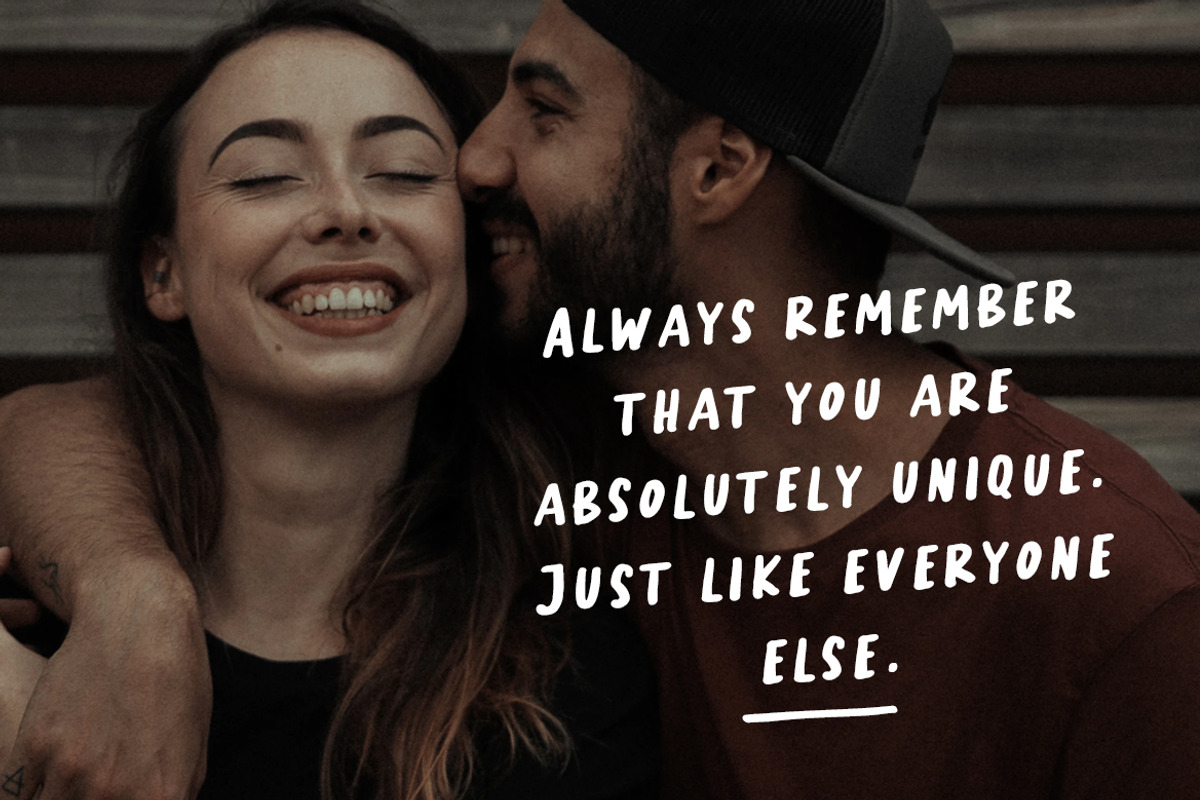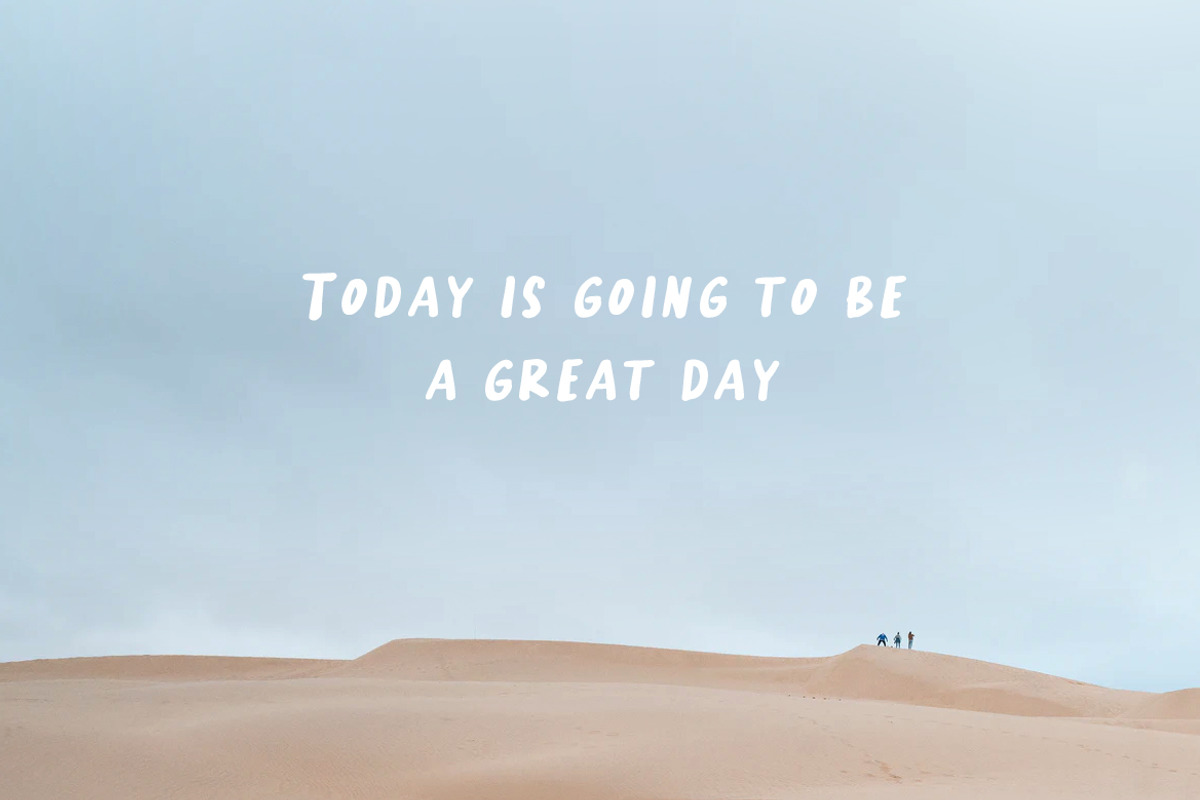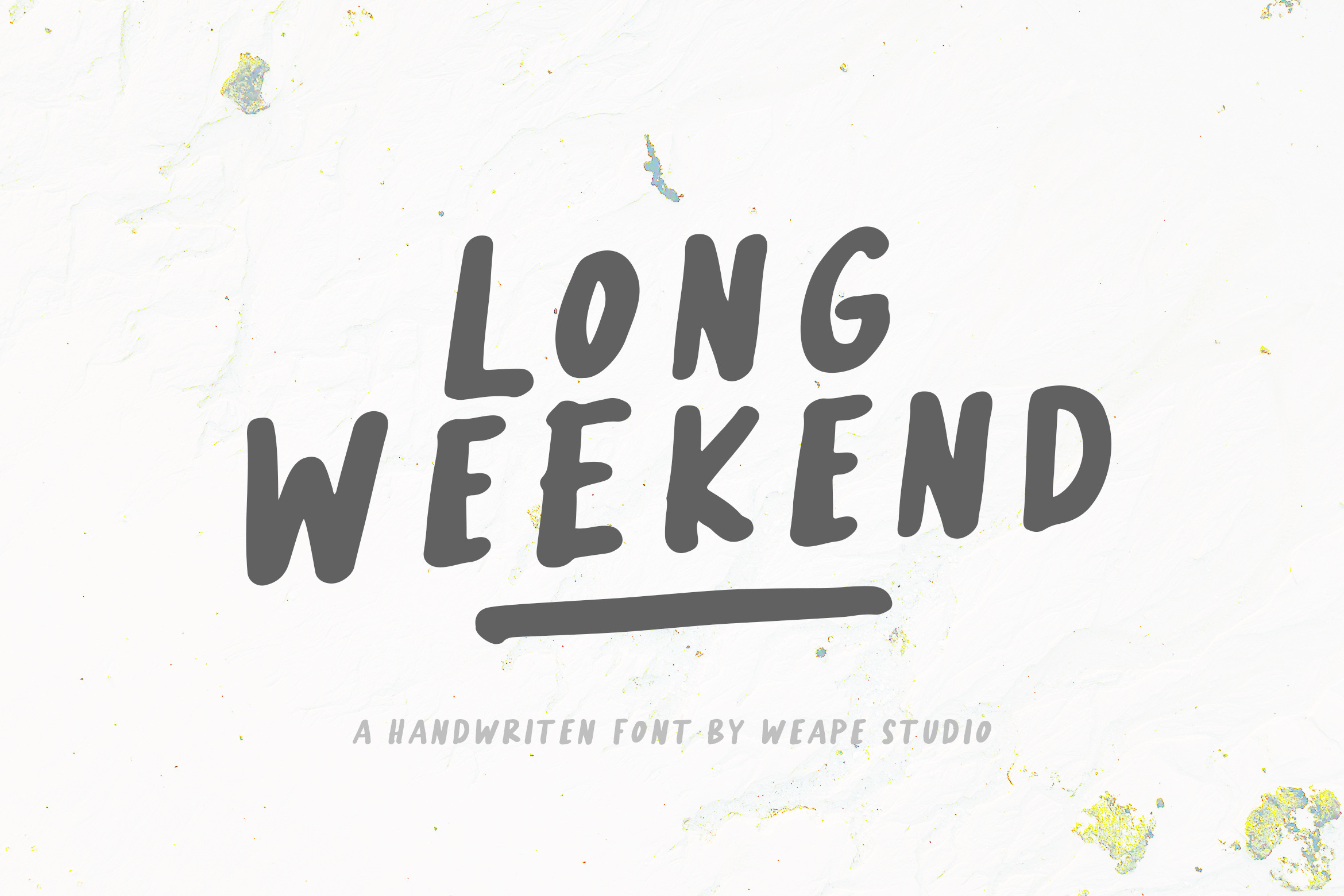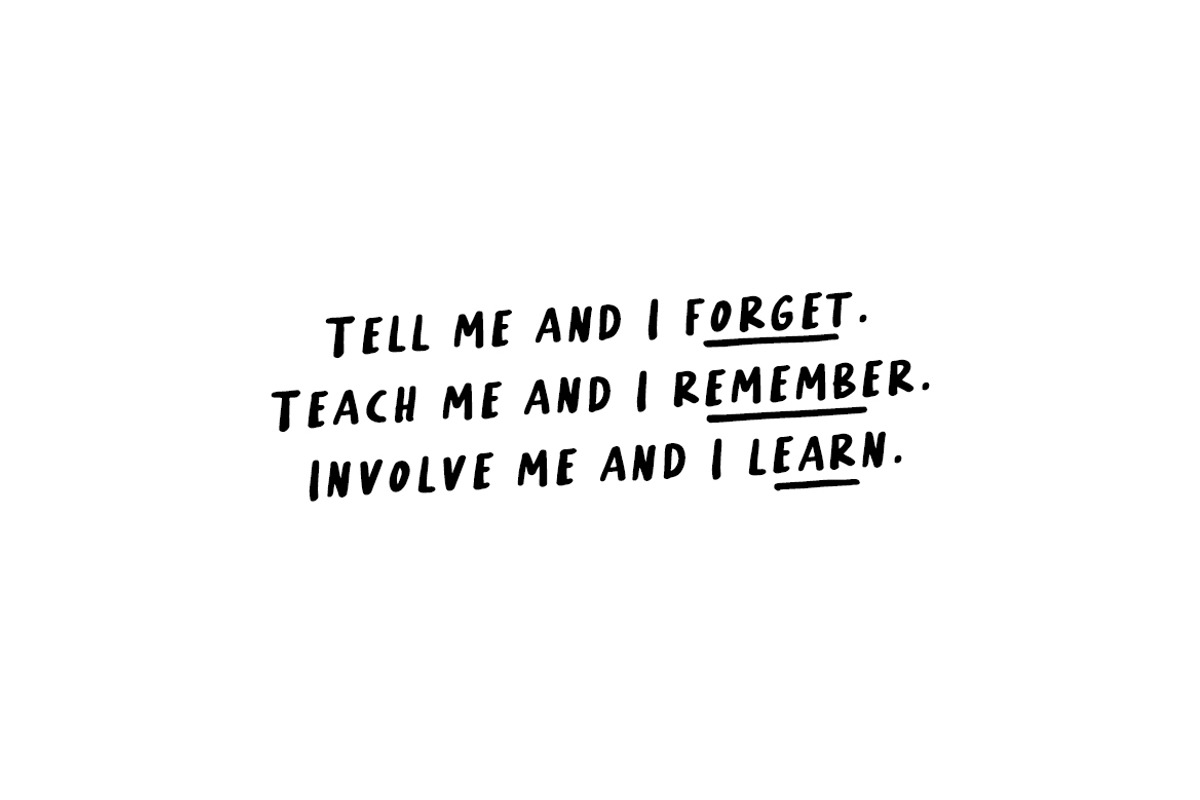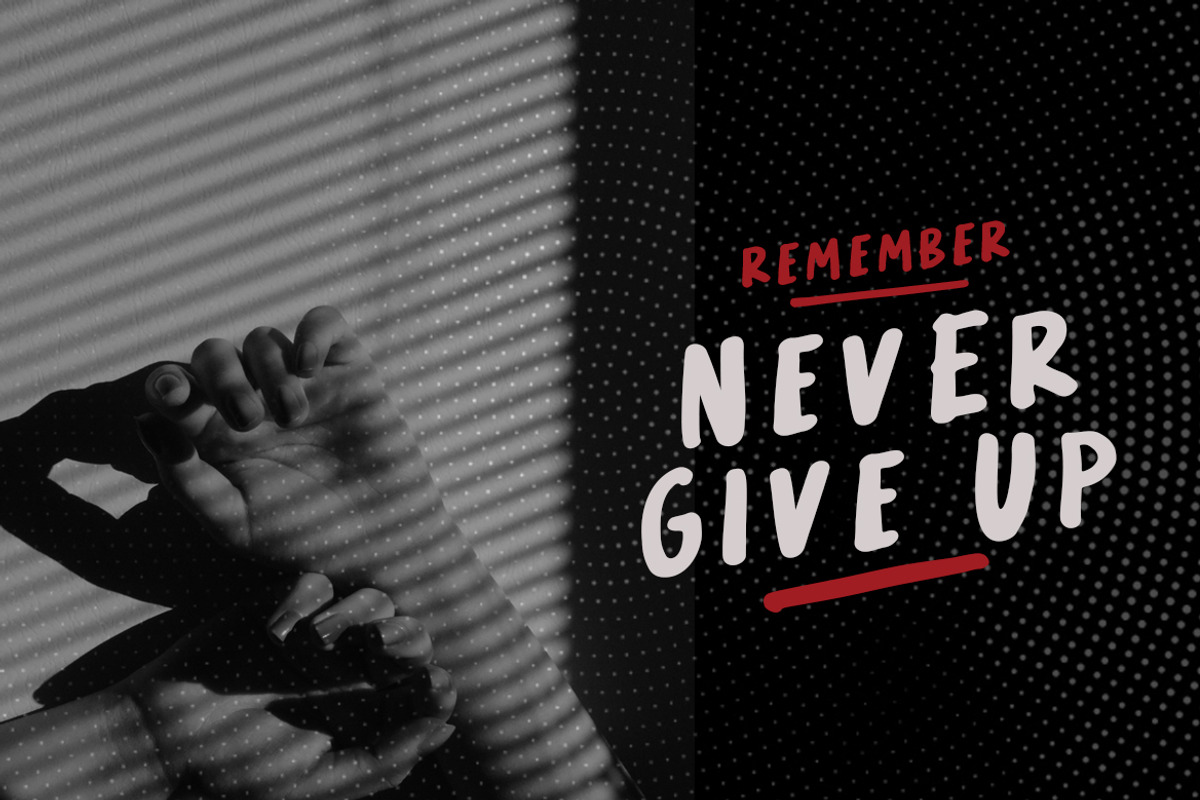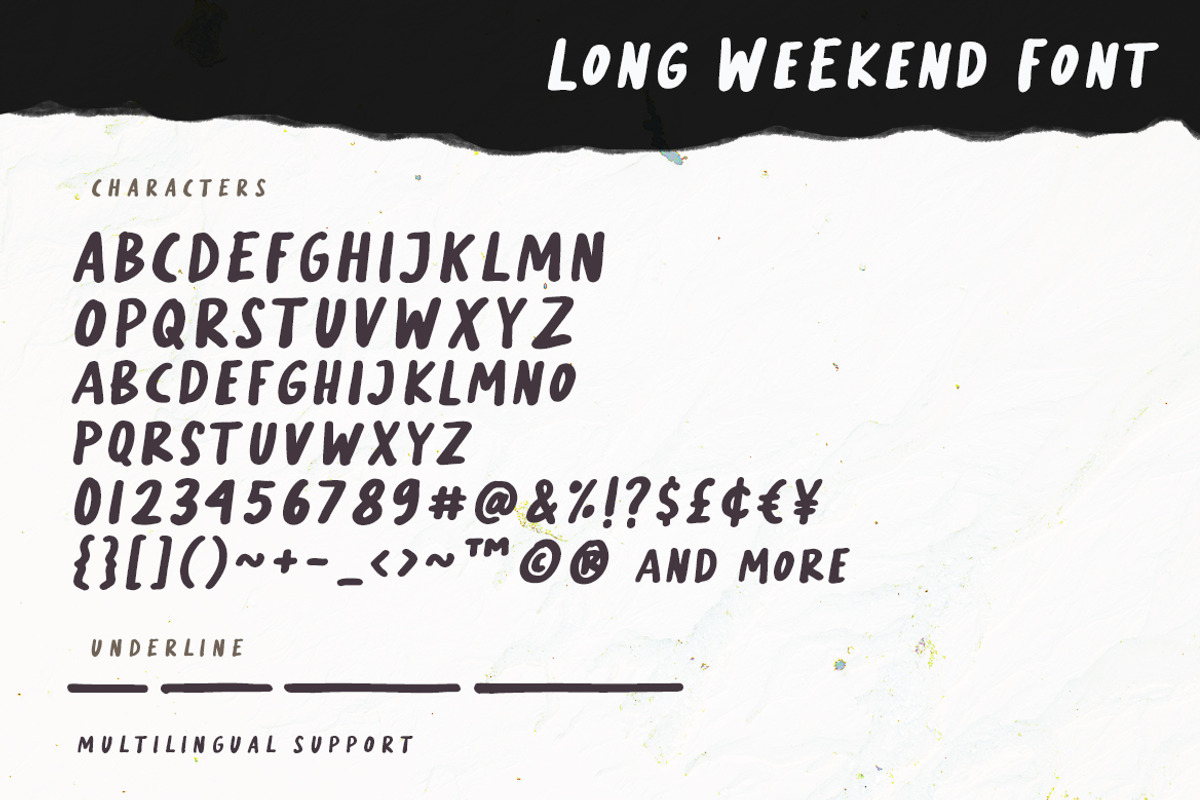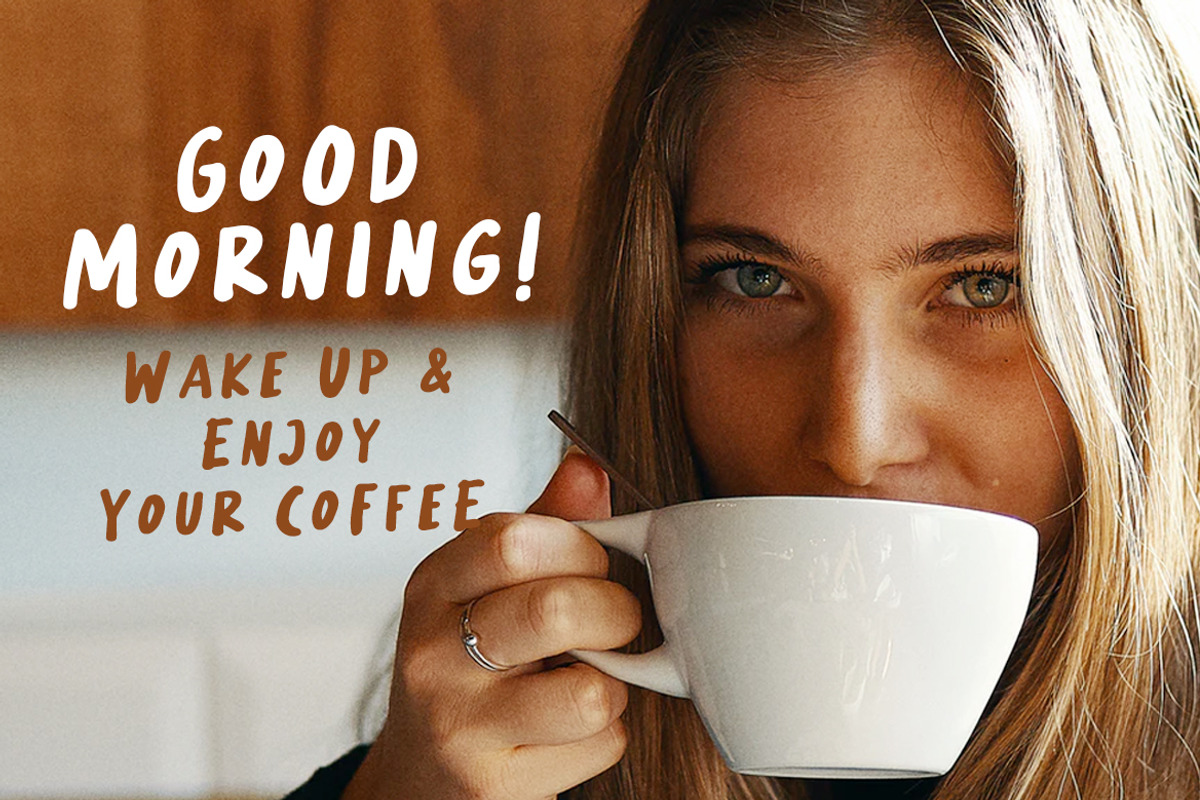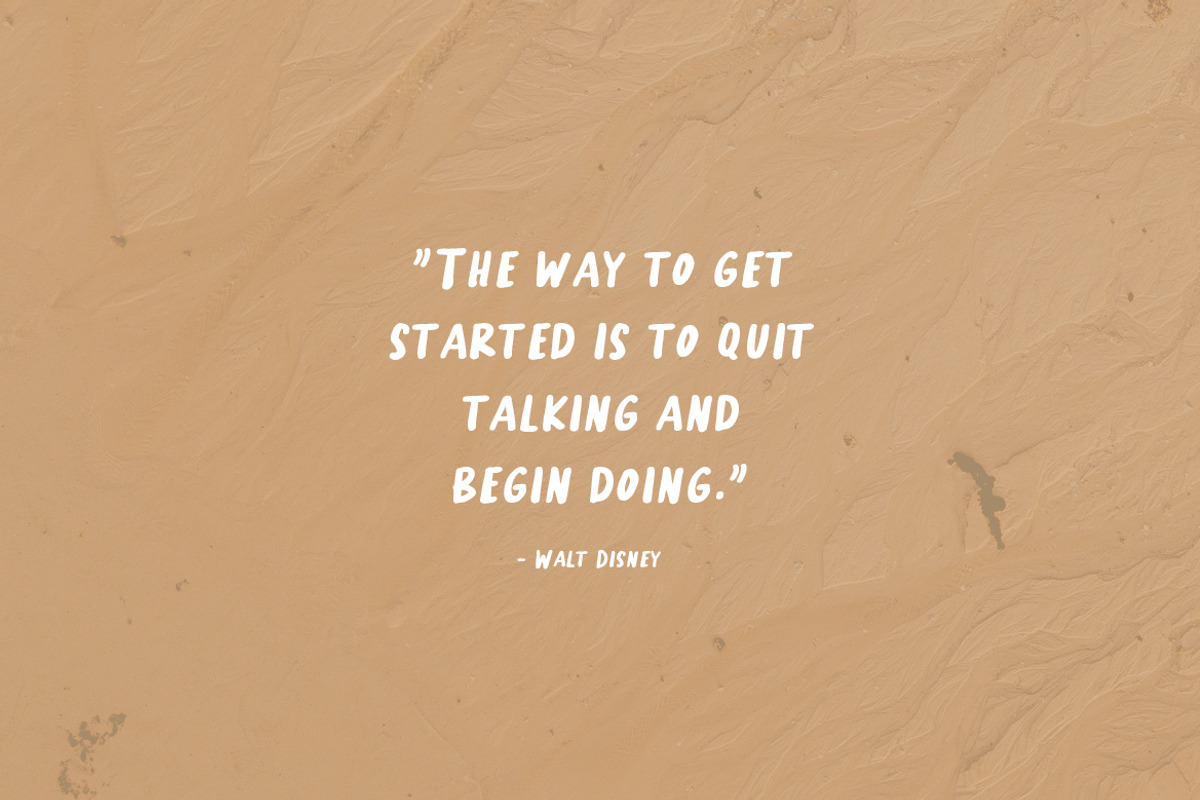
Long Weekend - Handwritten Font
Introducing Long Weekend, handwriting font with all caps style. You can combine a unique uppercase and lowercase, so it looks like natural handwriting.
And this font perfect for signature, logo, branding, poster, band, apparel, photography, title, social media post, ad banner, book cover, product packaging, handwritten quotes, and advertising. You can create more easily with many ligatures and make it as if you wrote it yourself.
The font is all capital letter characters, numerals, multilingual support, and a large range of punctuation. With OTF, TTF, WOFF, WOFF2 format.